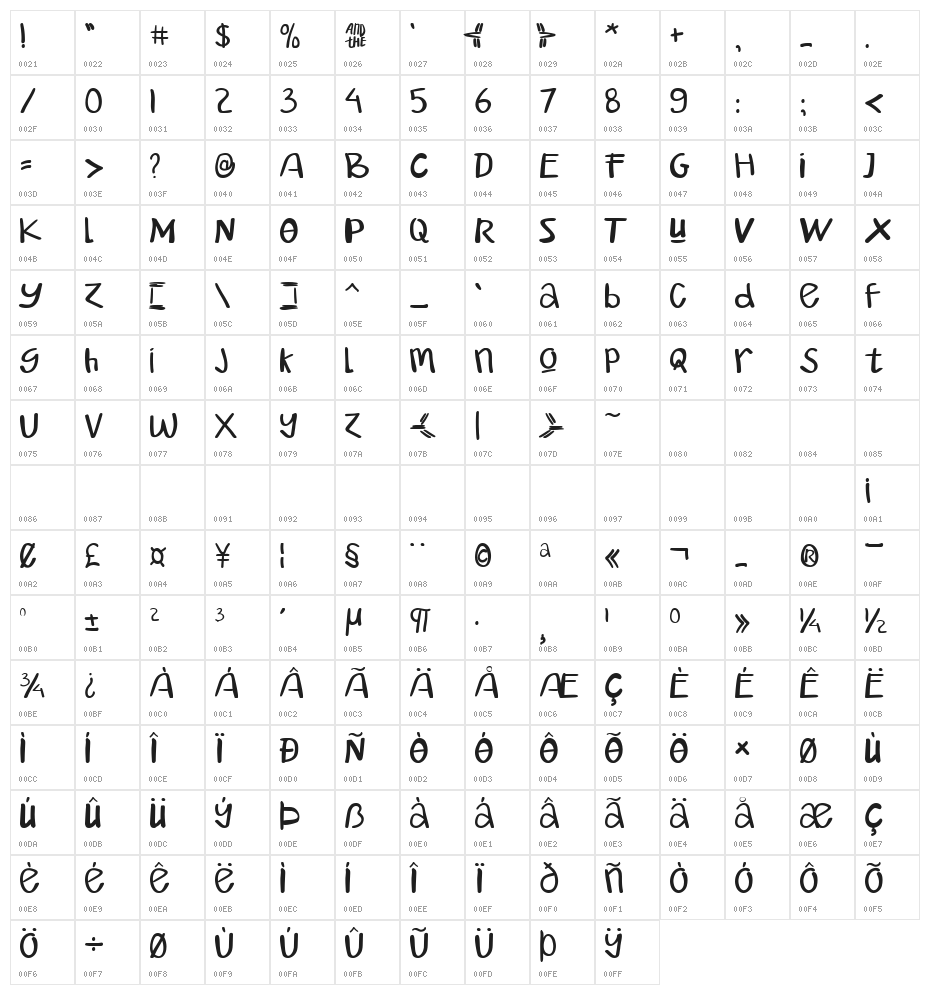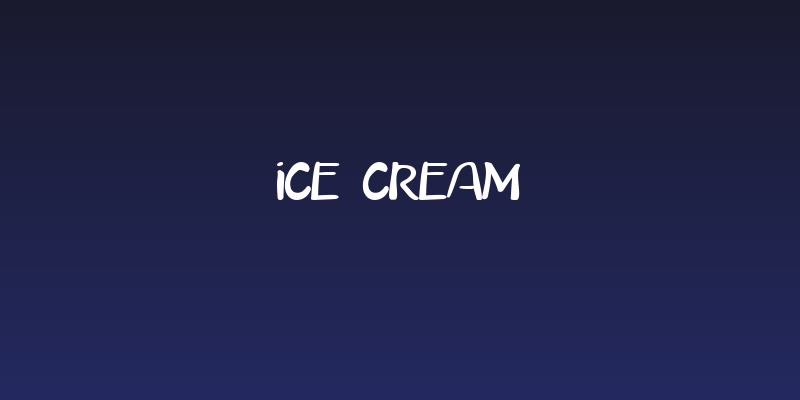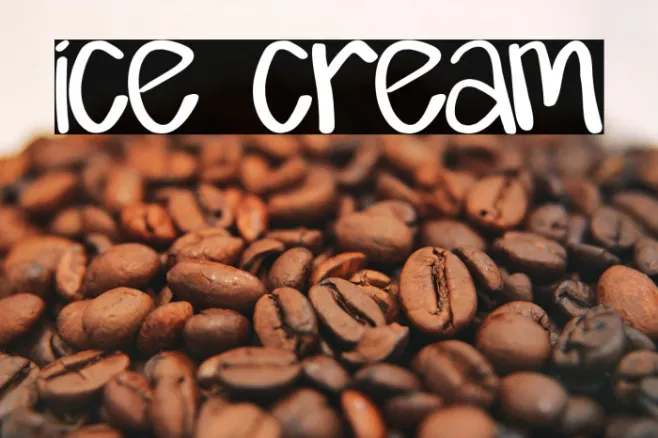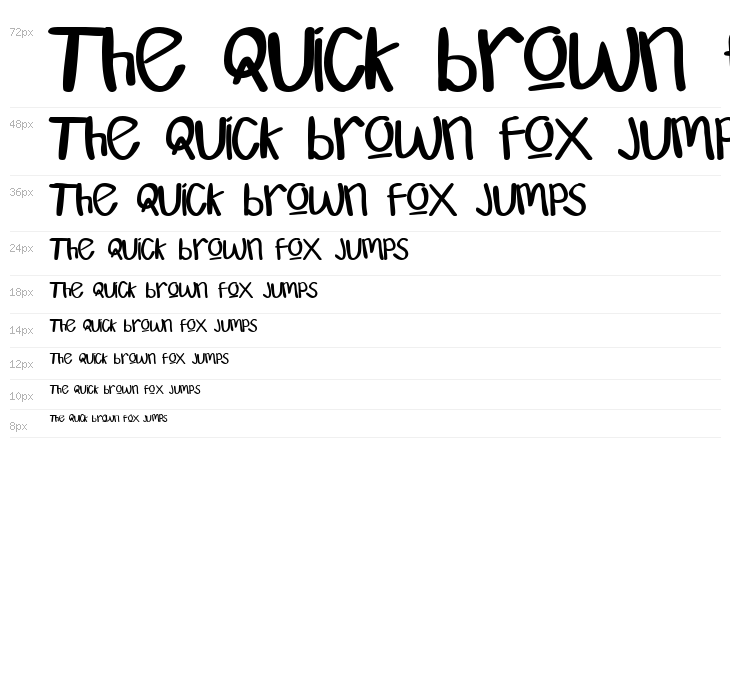
ice cream Font
ice cream Description
This playful and energetic font features a handwritten style with bold, rounded strokes that convey a sense of fun and creativity. The letters are slightly slanted, adding a dynamic feel, while the consistent thickness throughout the characters maintains readability. The font includes both uppercase and lowercase letters, numerals, and a variety of special characters, making it versatile for different design needs. Its informal and friendly appearance makes it ideal for projects that aim to capture a youthful and lively spirit.
| Proposed Projects | Ideal for children's book covers, playful branding, greeting cards, and social media graphics. |